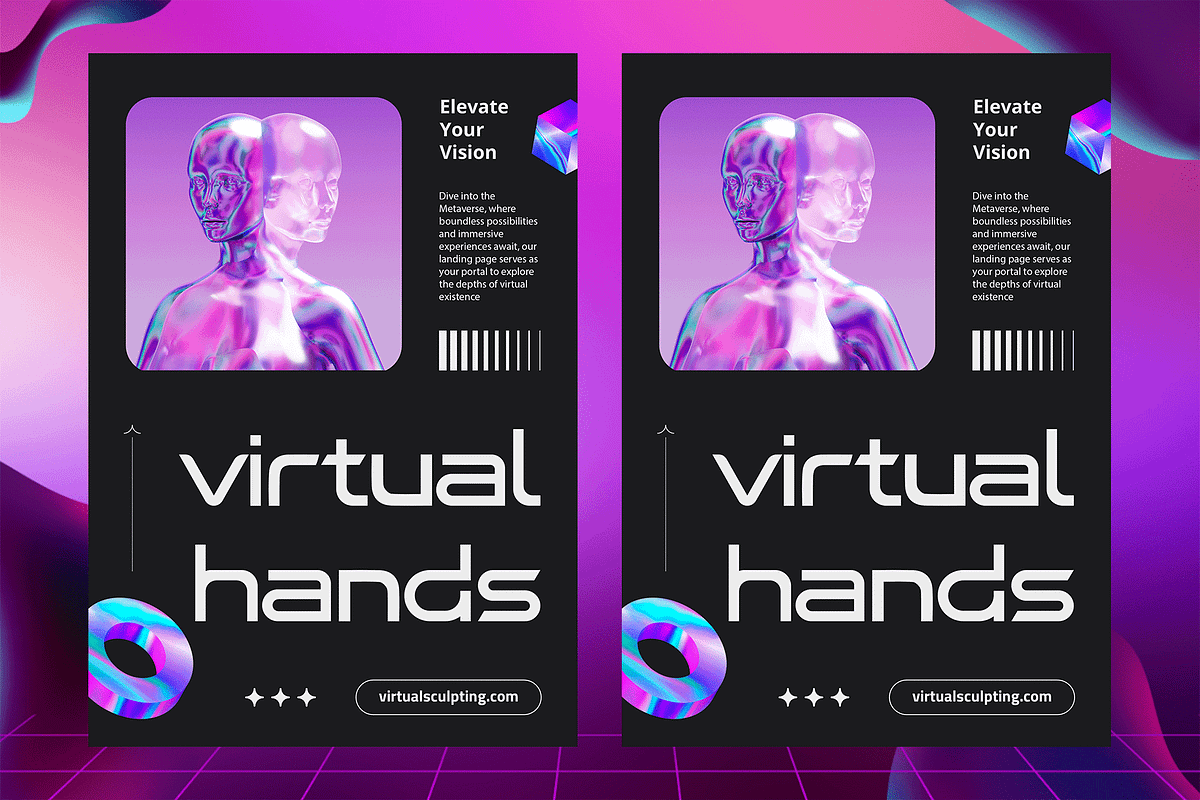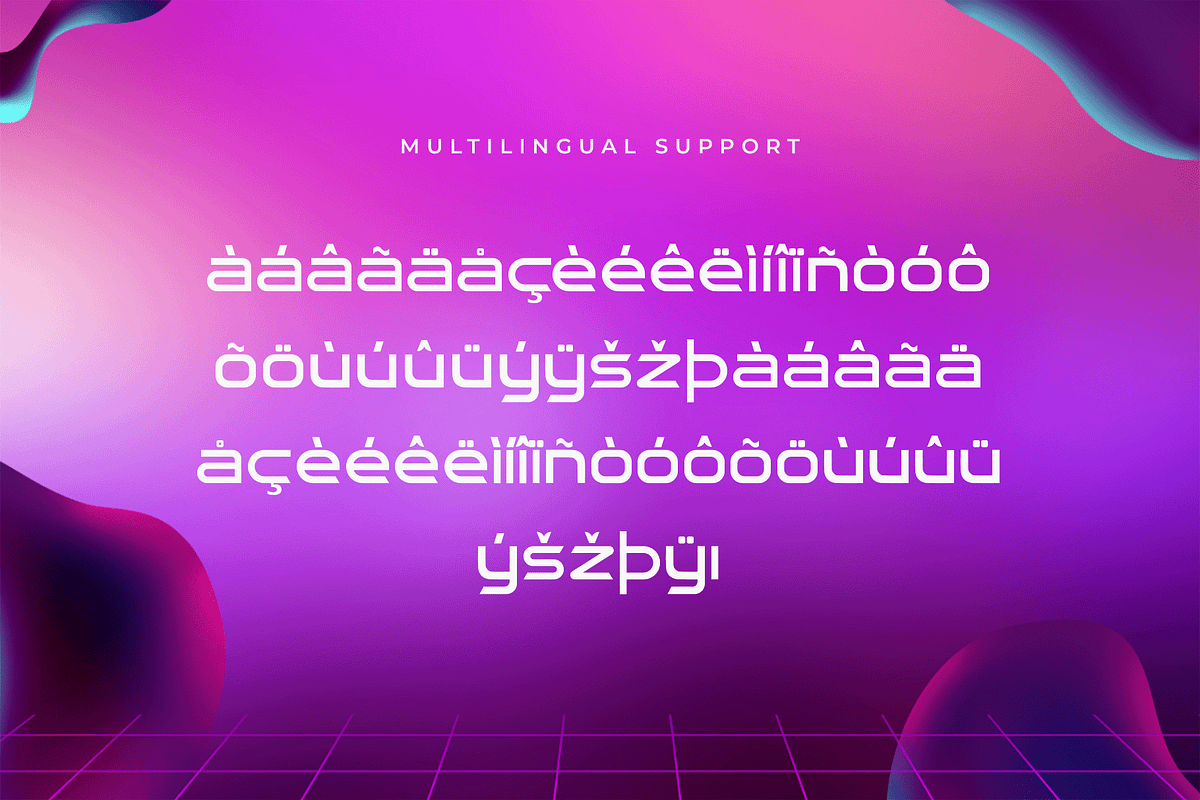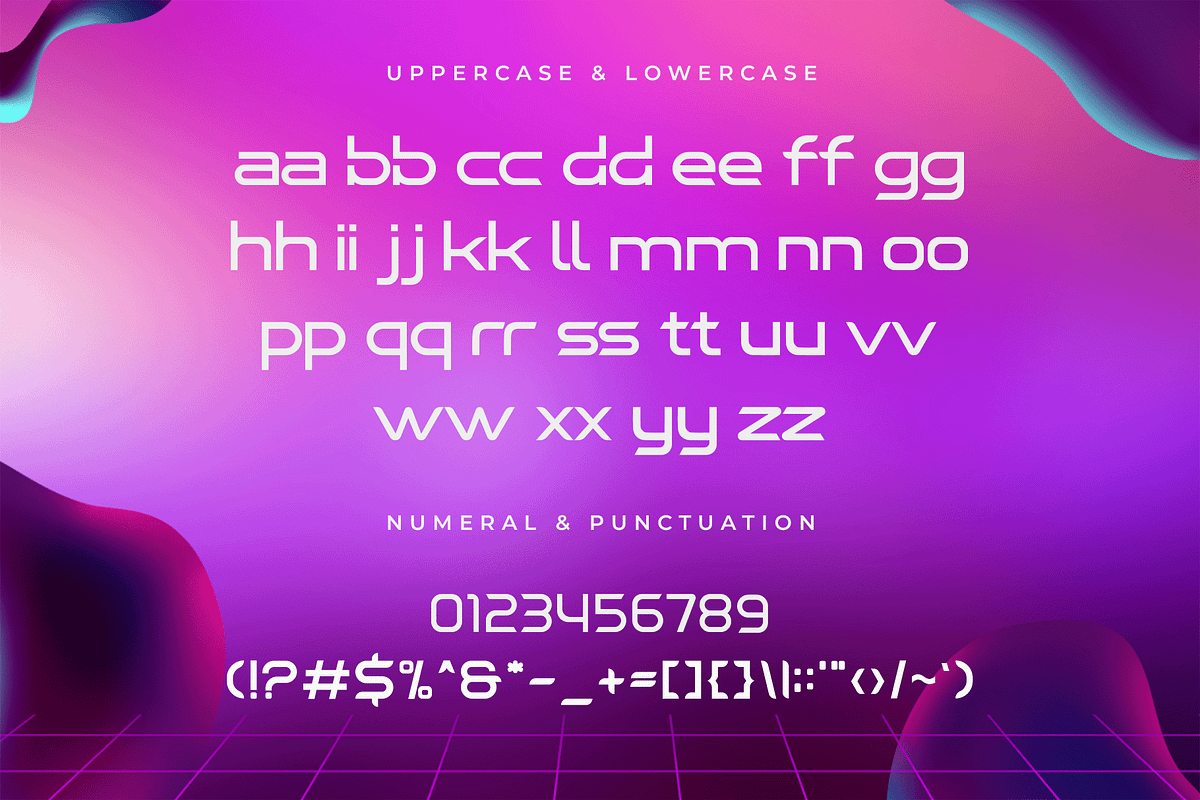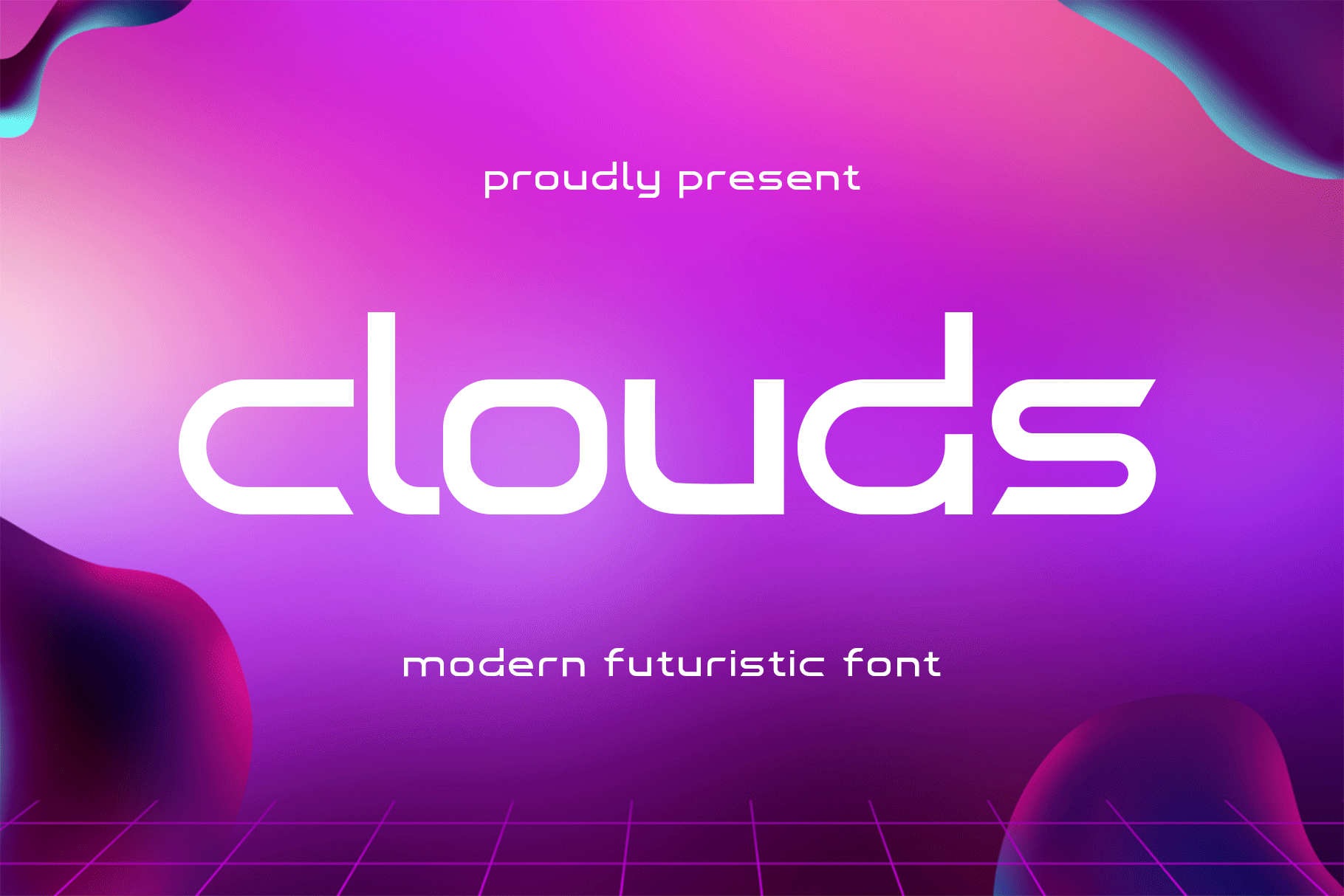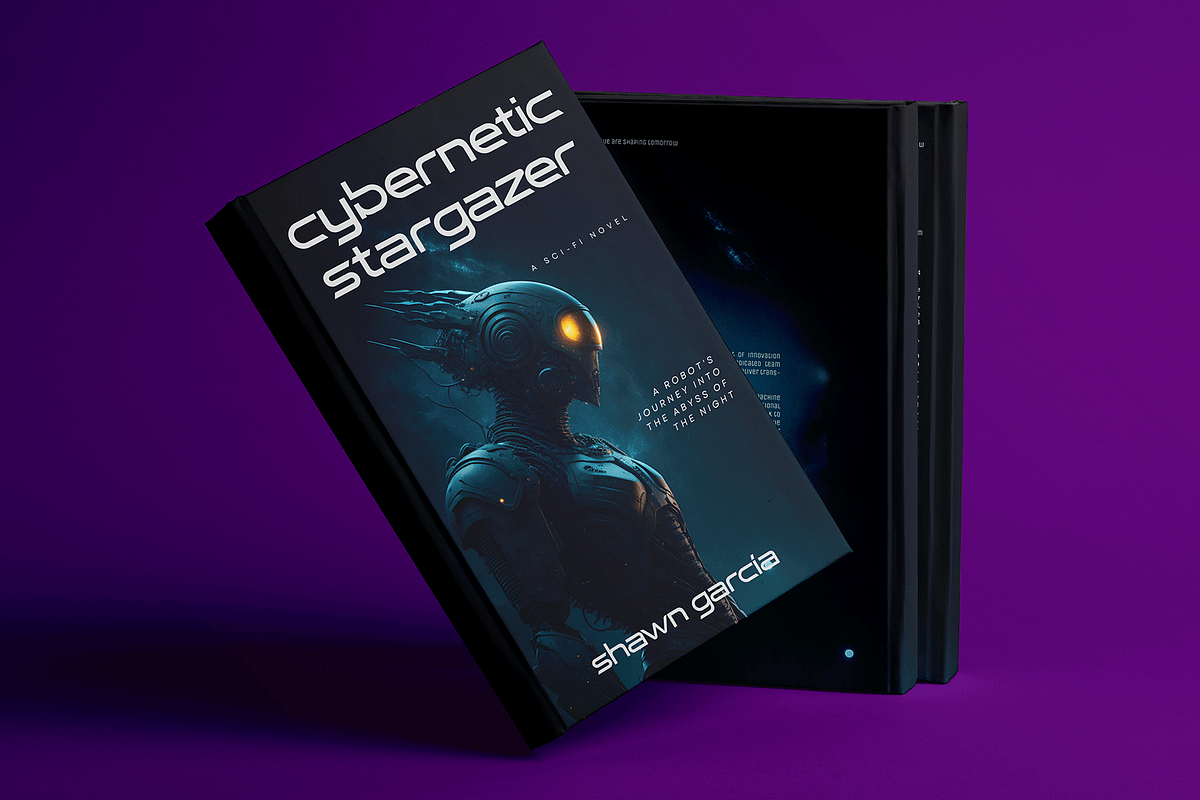
Clouds – Modern Futuristic Font
Say hello to Clouds, a modern futuristic font designed to give your projects a sleek, digital-forward aesthetic. With smooth curves, clean edges, and a slightly sci-fi vibe, Clouds brings a sense of elevation and innovation to every letterform.
Perfect for tech brands, app interfaces, gaming graphics, space-themed posters, and cyberpunk visuals, Clouds is your go-to typeface for designs that want to feel advanced, light, and forward-looking. Its minimalist yet bold design allows for easy readability while maintaining a unique, modern character.
Whether you're working on a high-tech logo or a digital concept presentation, Clouds will lift your design to new creative heights.